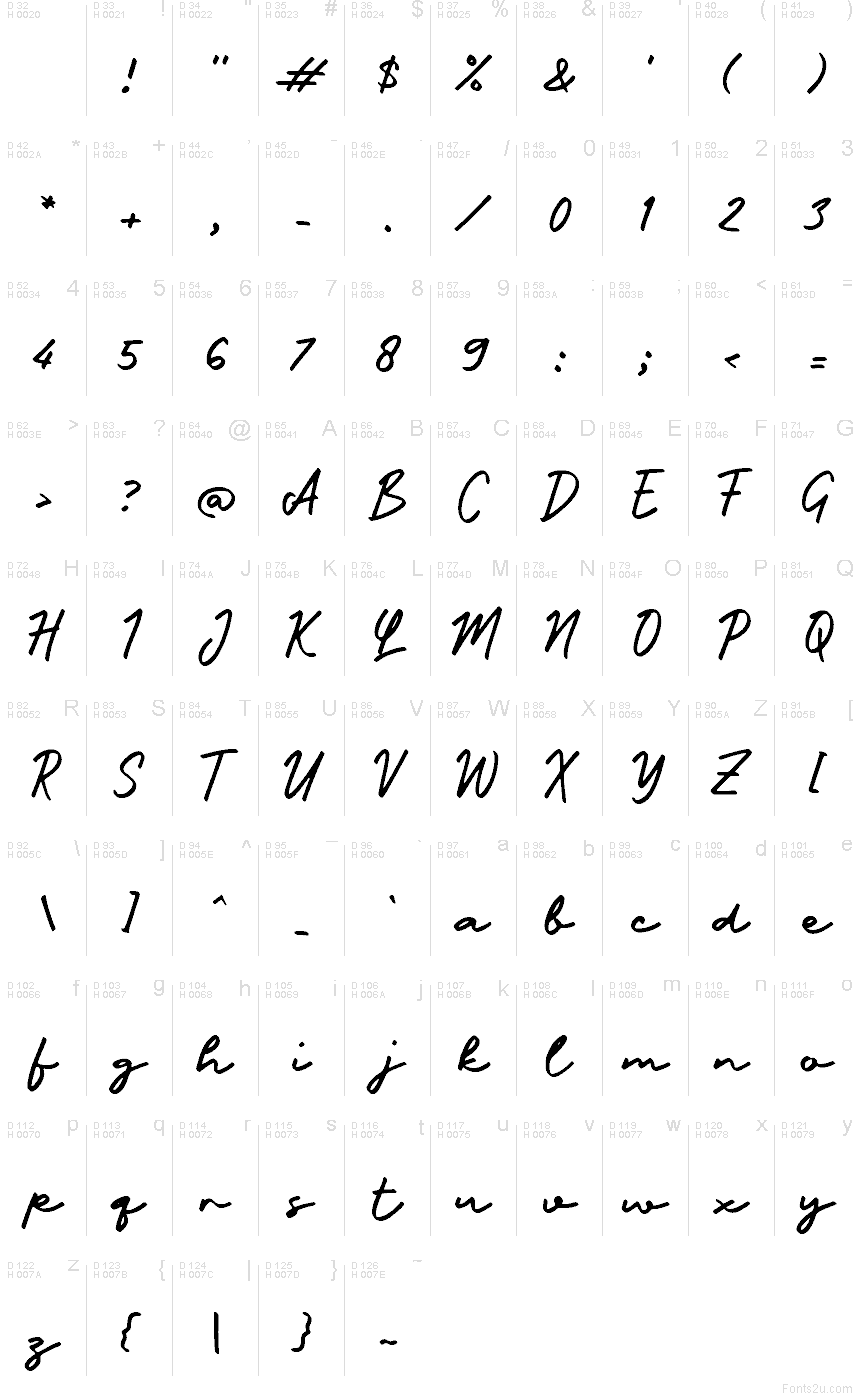
Nambang
Nambang font by wep is a free handwritten typeface that finally bridges the gap between natural pen strokes and clear readability. Its letters look like they were written with a smooth gel pen—slightly slanted, a bit loose, but not messy—giving designs that effortless “real handwriting” feel without sacrificing clarity. The rhythm between letters is fluid and connected, so even longer words feel like a quick, confident signature rather than a clumsy script.
Using Nambang, you can bring a warm, personal touch to social media graphics, signatures, branding for small businesses, packaging, invitations, and quote posts. This free font shines when you set it a bit larger and give it breathing room, letting the inky texture show. For balance, pair Nambang with a clean geometric sans serif for body text to keep layouts grounded and easy to scan.